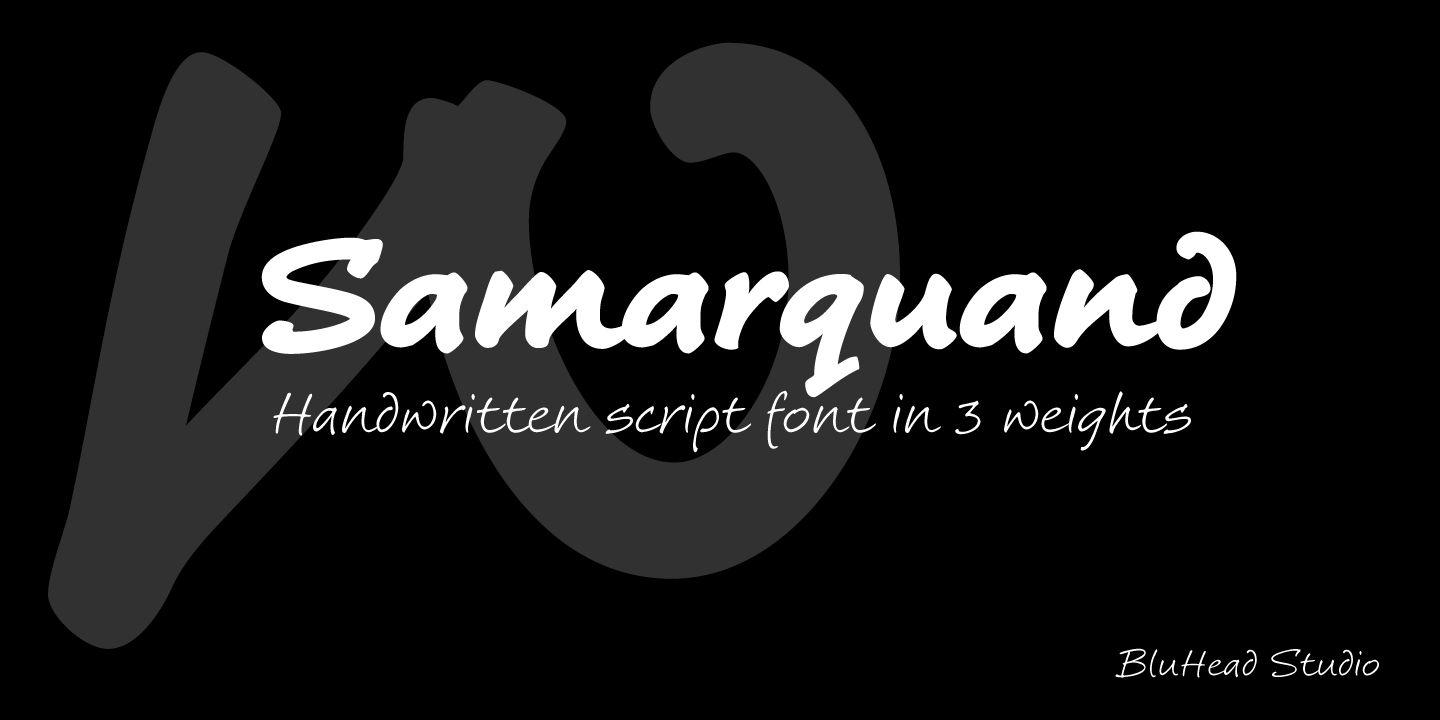
Samarquand Font is perfect for historical documentaries, cultural heritage projects, ancient civilization designs, archaeological publications, museum exhibitions, traditional crafts branding, silk road themes, and historic display typography.
What makes Samarquand Font exciting is its ancient cultural character that embodies historical grandeur and Central Asian sophistication through traditional letterforms and archaeological appeal. This distinguished typeface features historical construction, cultural details, and ancient personality that captures the essence of silk road civilization and historical magnificence, making it ideal for projects seeking to communicate cultural heritage, historical authenticity, and ancient wisdom with genuine archaeological appeal and traditional sophistication.
The Samarquand Font family includes Light, Regular, and Bold weights, each maintaining the characteristic historical dignity and cultural authenticity that define this distinctive typeface's ancient personality and archaeological sophistication.
Samarquand Font Free Download provides access to a typeface that perfectly captures the essence of ancient civilization and cultural heritage preservation. This historic font brings authentic archaeological aesthetics to contemporary projects, making it essential for museums, cultural institutions, and heritage organizations targeting audiences passionate about ancient history and cultural preservation. The font's historical construction and cultural details ensure respectful representation of ancient civilizations while its distinctive character creates meaningful connections among individuals seeking historical knowledge and cultural understanding. Whether designing museum exhibition materials, archaeological research publications, or cultural heritage campaigns, this font delivers the historical authenticity and cultural gravitas that scholarly audiences expect. Its ancient foundation and cultural symbolism make it indispensable for projects celebrating human civilization, historical preservation, and the enduring legacy of ancient cultures, ensuring communications resonate with audiences who value the historical wisdom, cultural richness, and archaeological significance that define authentic ancient civilizations and cultural heritage across diverse historical periods and geographical regions.